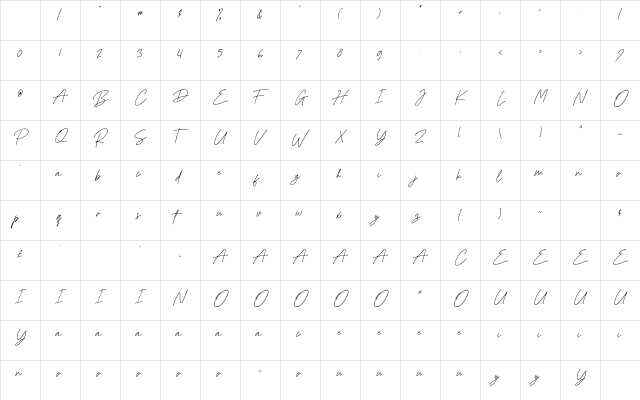
California Bright is a composed and adaptable typeface that performs quietly and consistently across a wide range of design contexts.
Pro Tip: Use California Bright in both headline and body roles to test its range before committing to a single application.